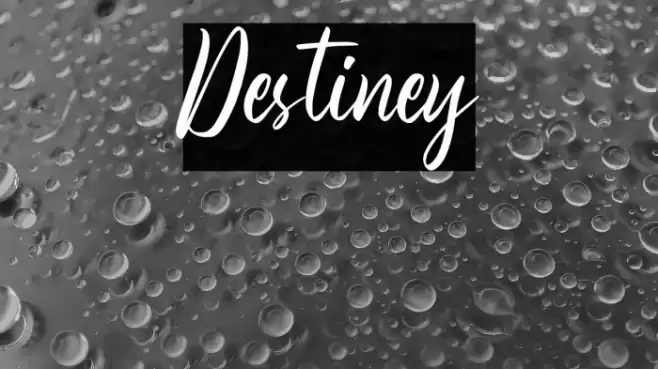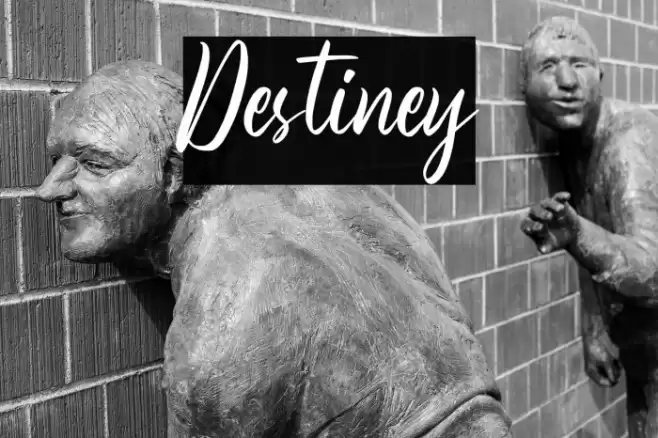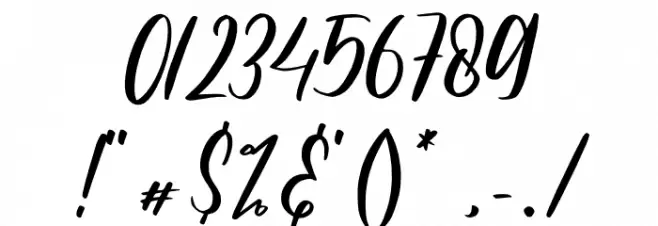
Destiney Font
Destiney Description
This font exudes a sense of elegance and fluidity, characterized by its cursive, handwritten style. The letters are gracefully connected, with smooth curves and a consistent flow that mimics natural handwriting. The uppercase letters are slightly more elaborate, with extended strokes and loops that add a touch of sophistication. The lowercase letters maintain a balanced and harmonious appearance, ensuring readability while retaining an artistic flair. The numerals and special characters are designed to complement the overall aesthetic, featuring similar curves and strokes. This font is ideal for projects that require a personal, artistic touch, such as invitations, greeting cards, or branding materials.
A cursive, handwritten font with elegant, flowing strokes from Uncategorized fonts.
- Proposed Projects: Ideal for wedding invitations, greeting cards, branding, and artistic projects.
- Overall Style: Elegant
- Use Case: Logos, Invitations, Artistic projects